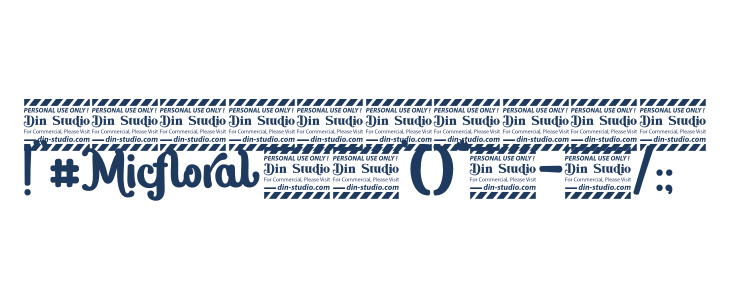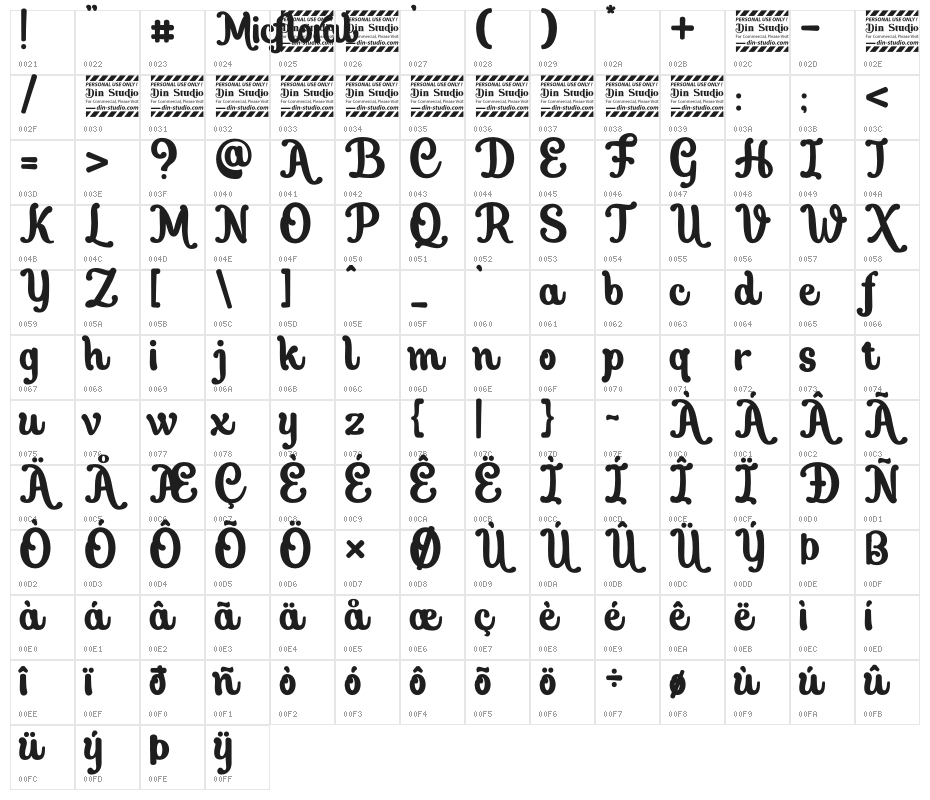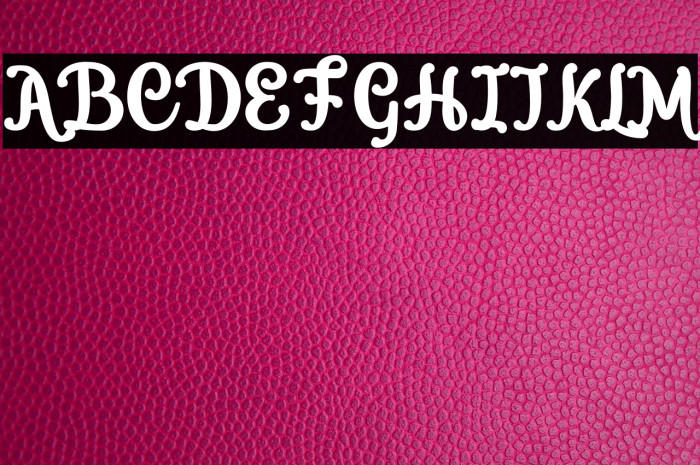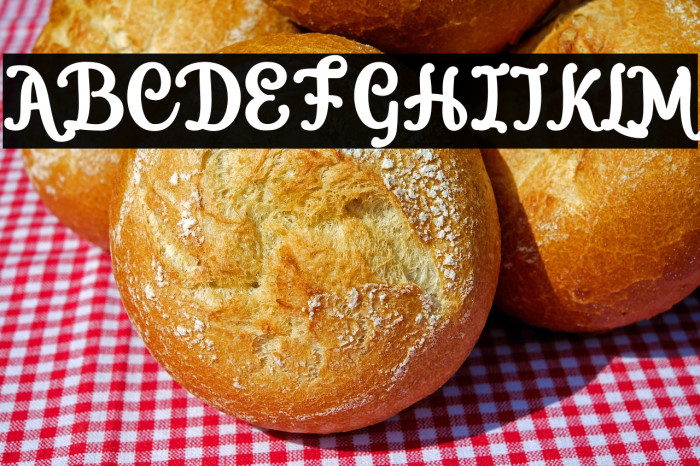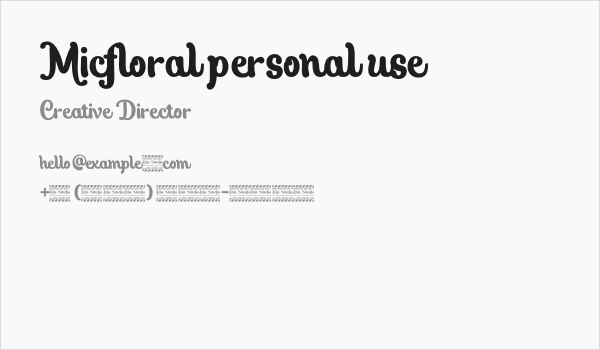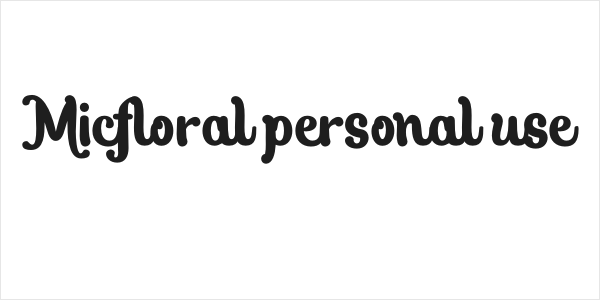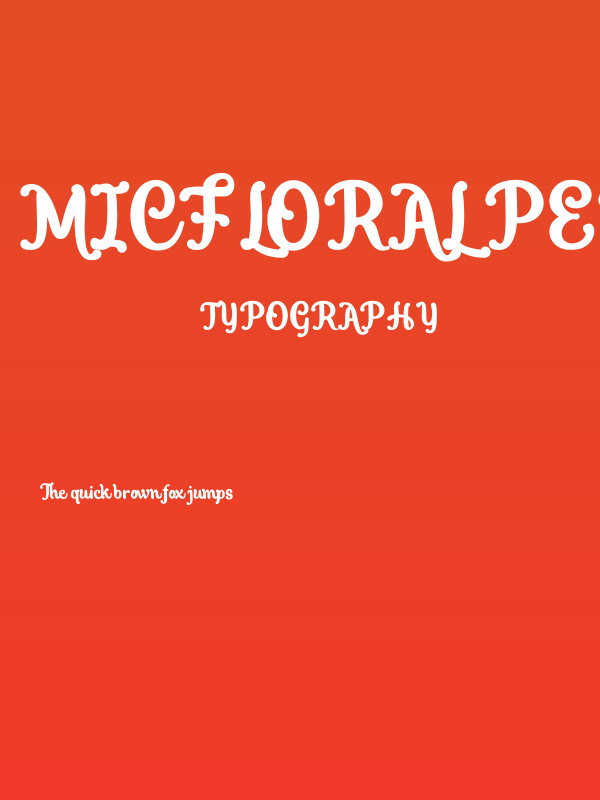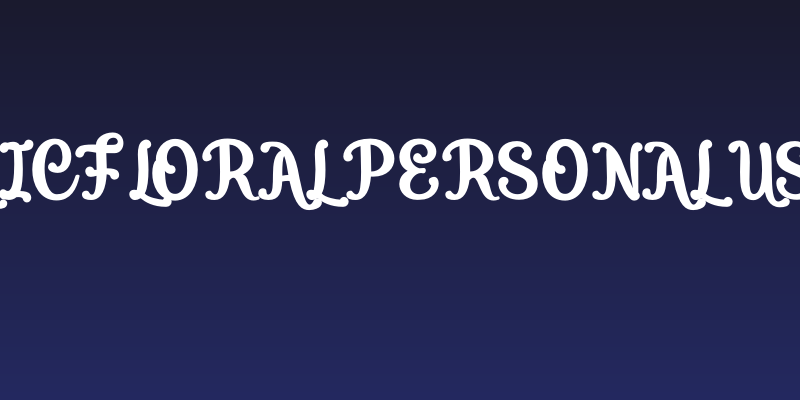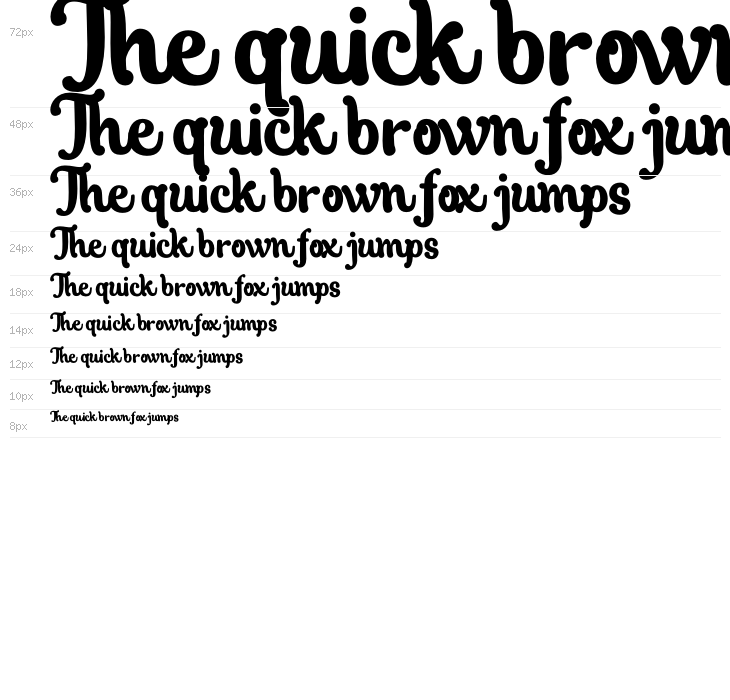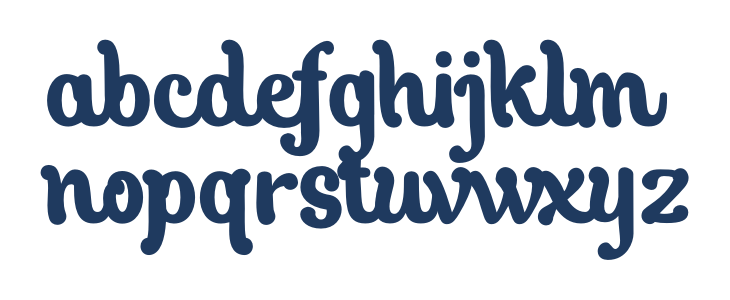
Micfloral personal use Font
Micfloral personal use Description
This font features a playful and bold script style with a hand-drawn appearance. The uppercase letters are characterized by their rounded, flowing forms, while the lowercase letters maintain a consistent thickness, adding to the font's cohesive look. The characters are slightly condensed, giving a compact feel without sacrificing readability. The font includes a variety of special characters, enhancing its versatility for creative projects. Its bold strokes and whimsical curves make it ideal for designs that require a touch of personality and flair.